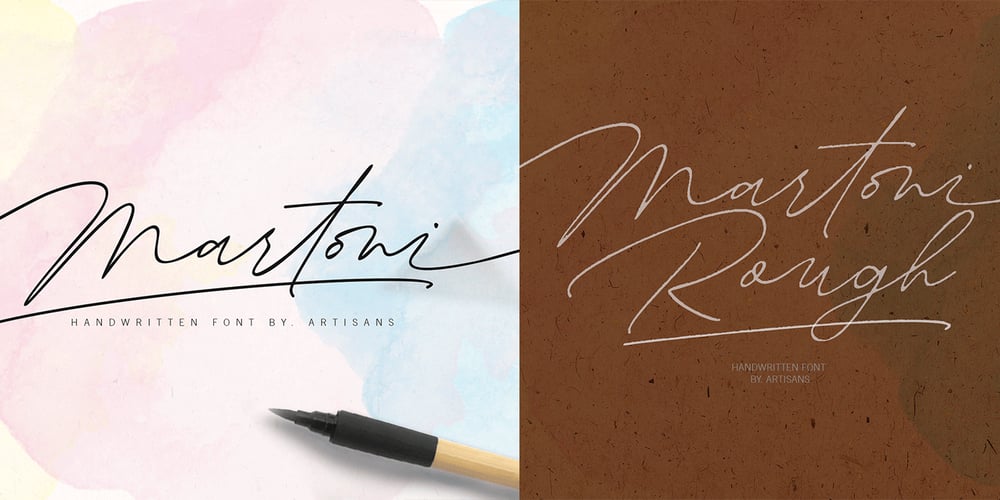
Martoni Font Family was designed by Roiyani Teungku and published by Artisan Studio. Martoni contains 2 styles and family package options. Martoni font has two styles, namely clean and rough. It’s a work that is purely a result of handwriting and has natural characteristics. It is perfect for invitations, signatures, blogs, social media, business cards, product brands. Martoni has Stylistic standard, Stylistic Initial, Stylistic Terminal and ligatures, and includes uppercase and lowercase letters, numbers and punctuation marks. Accessed by using OpenType smart programs such as Adobe Photo Shop, Adobe Illustrator, Adobe Indesign, Corel Draw and Microsoft Office. – Ligatures: st nt ult ot ul th at ff el fl ut ll al sl et nl ct cl rt rl tt ft of ss an rr on mm – Swash: A B C D E – Initial and terminal: a b c d e f g h i j k l m n o p q r s t u v w x y z